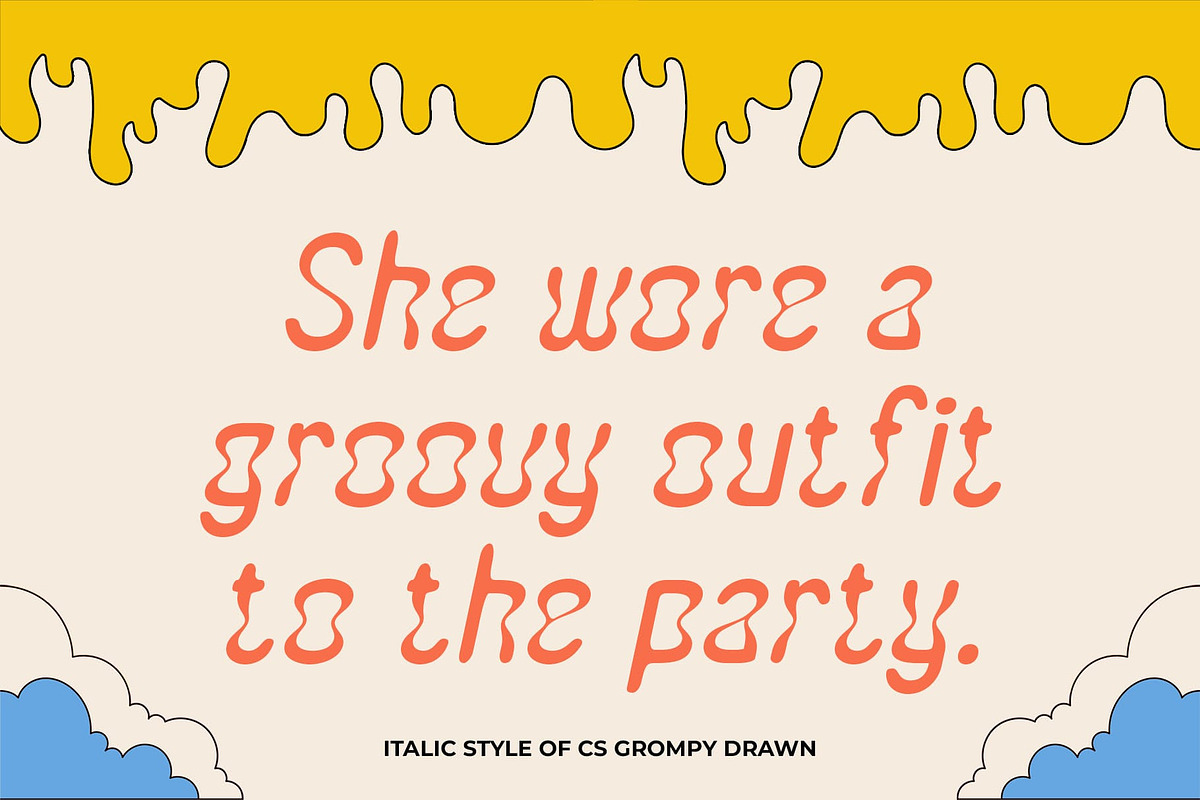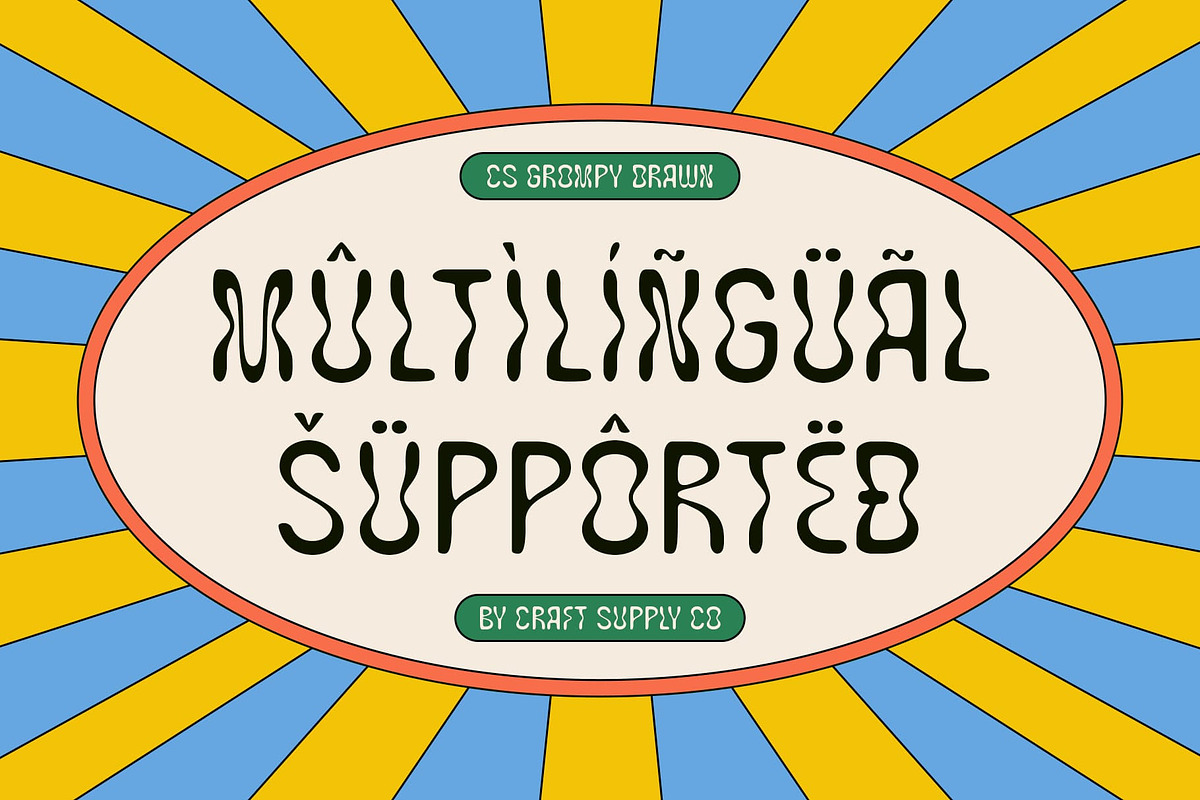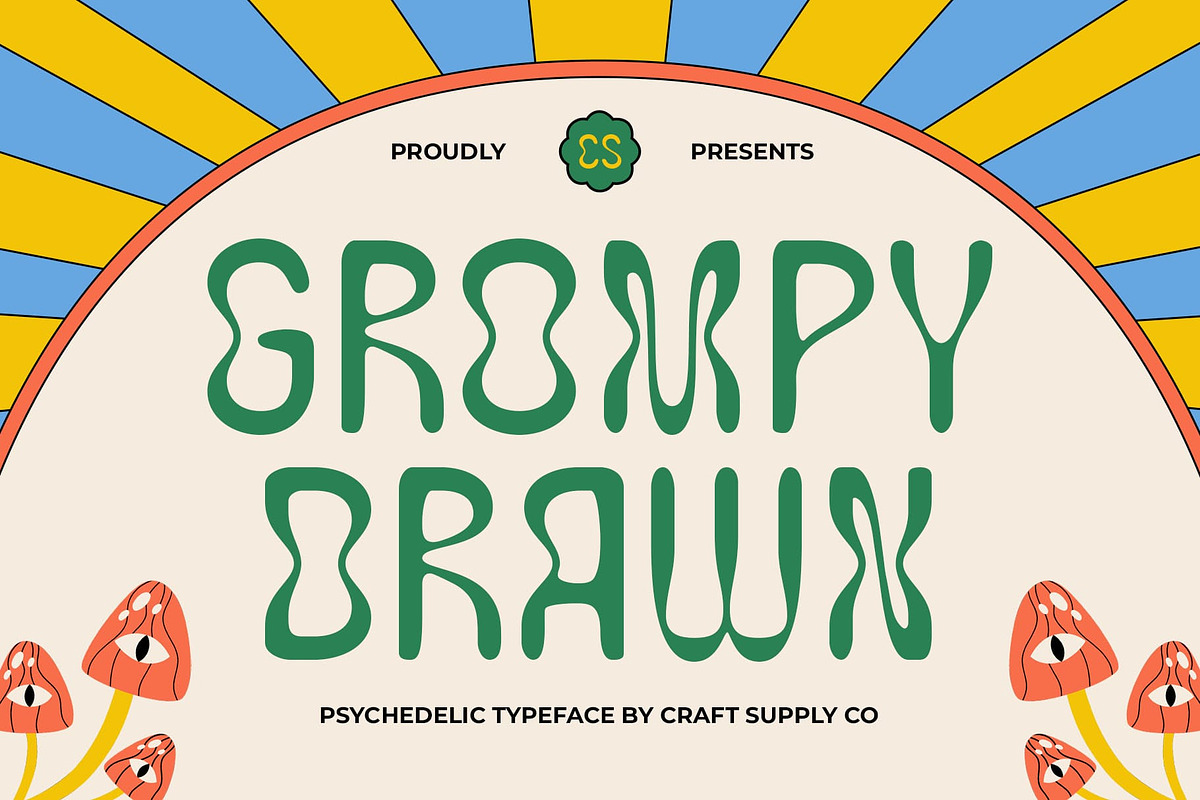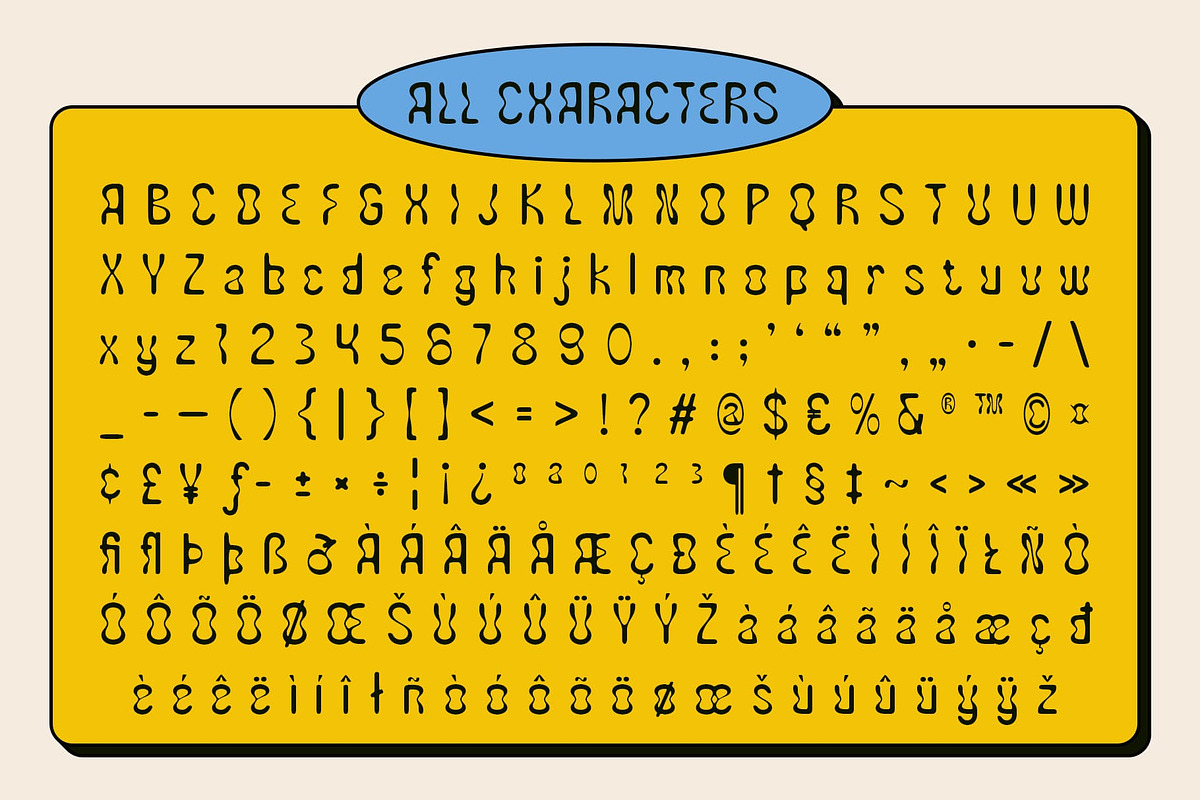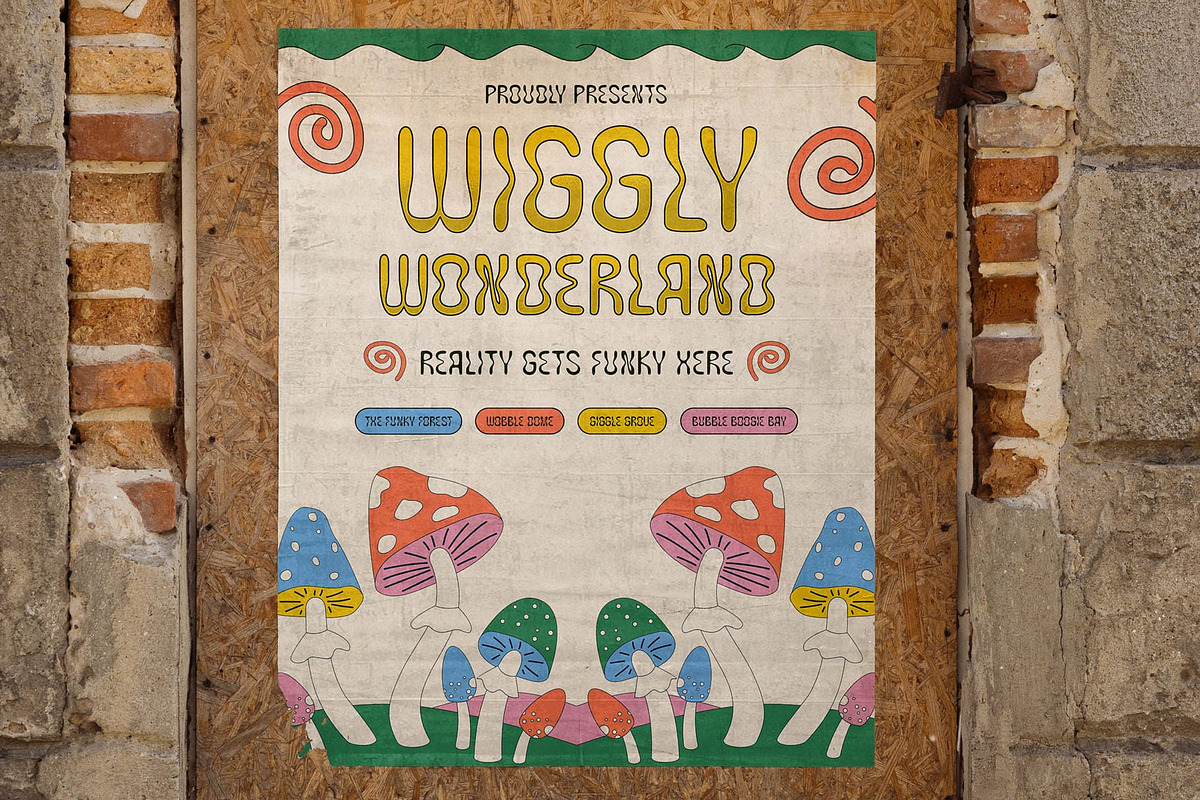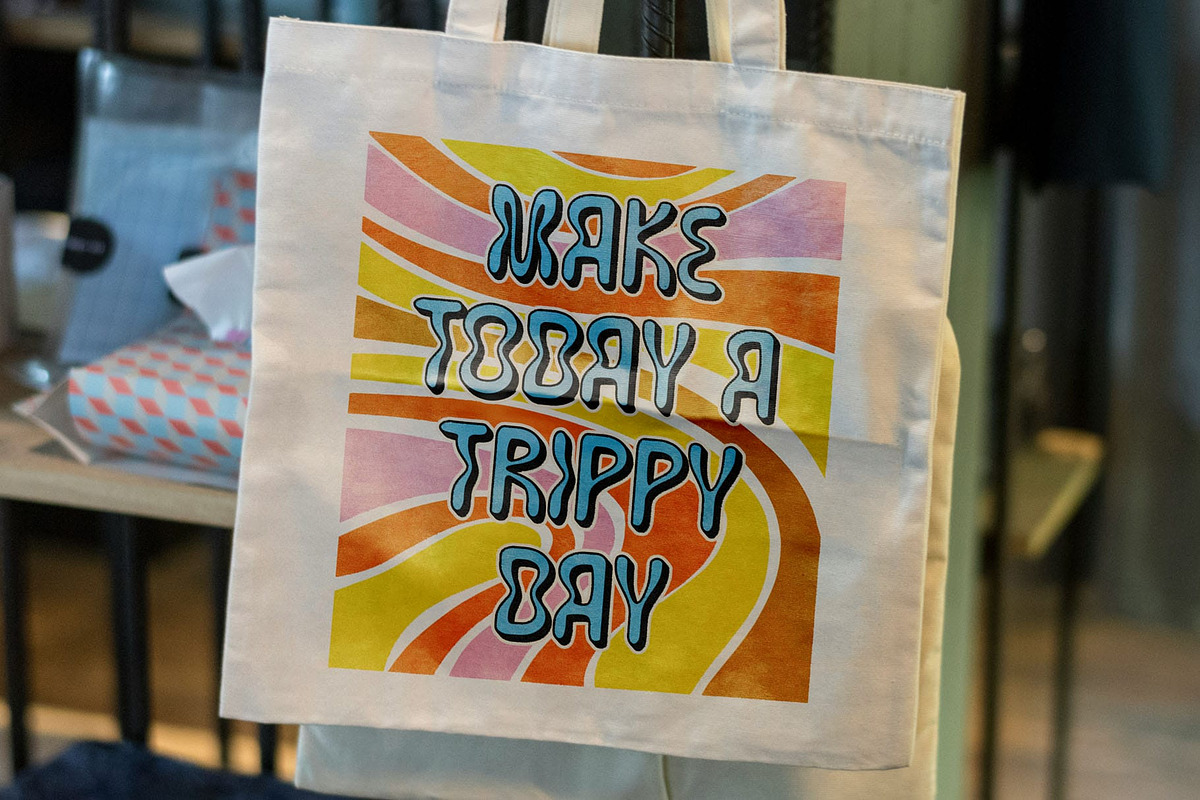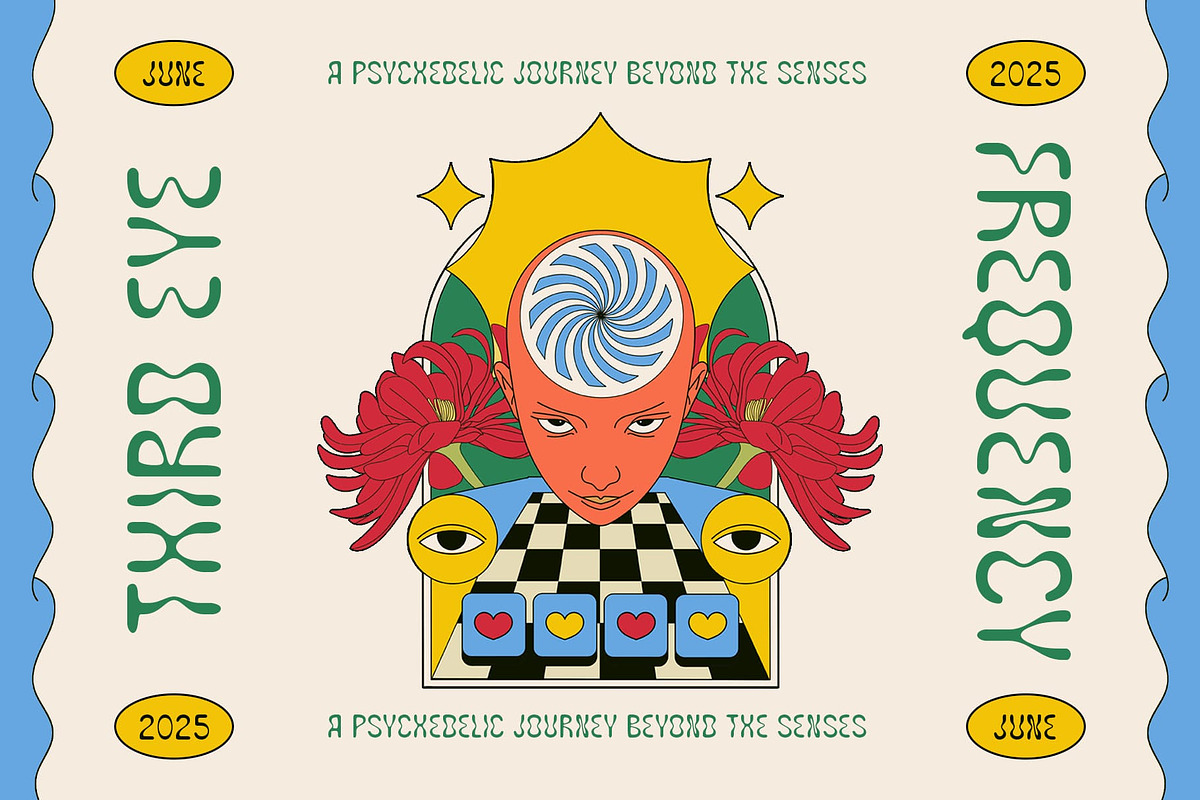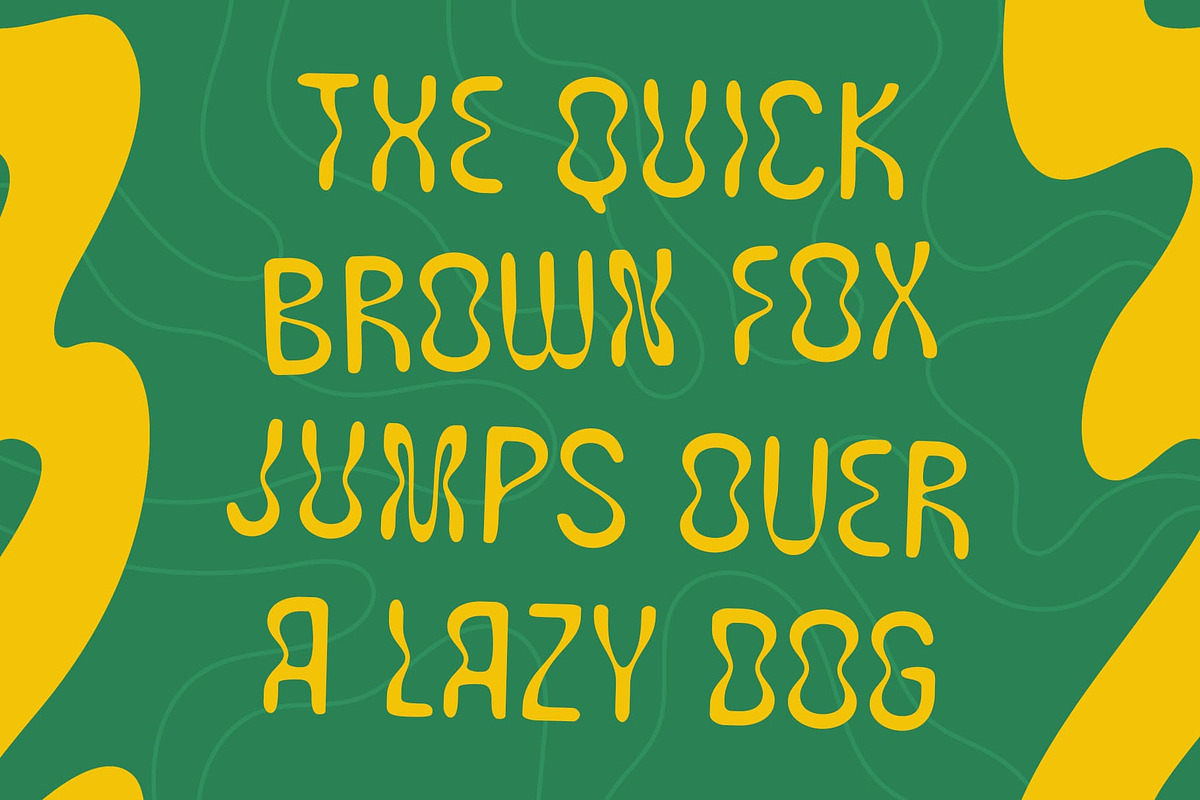
CS Grompy Drawn
CS Grompy Drawn: Psychedelic Energy with a Handmade Twist
Modern Display Font with Funky Psychedelic Style This is a modern display font that bursts with psychedelic flair and a funky, cheerful spirit. Its wildly expressive letterforms create a vibrant and eye-catching aesthetic, ideal for bold, experimental design work. This font is made to grab attention and infuse your visuals with energetic personality.
Drawn Effect for Handmade Expression What makes this modern display font truly stand out is its textured drawn effect, adding a handcrafted and artistic touch to the psychedelic shapes. The imperfect, sketchy lines lend a raw and organic feel, bringing warmth and creativity to every composition.
Playful and Unique Visual Character This psychedelic font exudes a sense of joy and originality through its quirky forms and energetic rhythm. It offers a playful balance between chaos and charm, making it a great fit for visuals that demand attention without taking themselves too seriously.
Perfect for Music, Posters, and Creative Branding Designed to shine in loud, expressive contexts, this psychedelic font is the perfect font for music posters, festival branding, experimental graphics, or any creative project that aims to break the mold. Whether you’re channeling retro psychedelia or modern funk, this font delivers standout personality with a handmade soul.